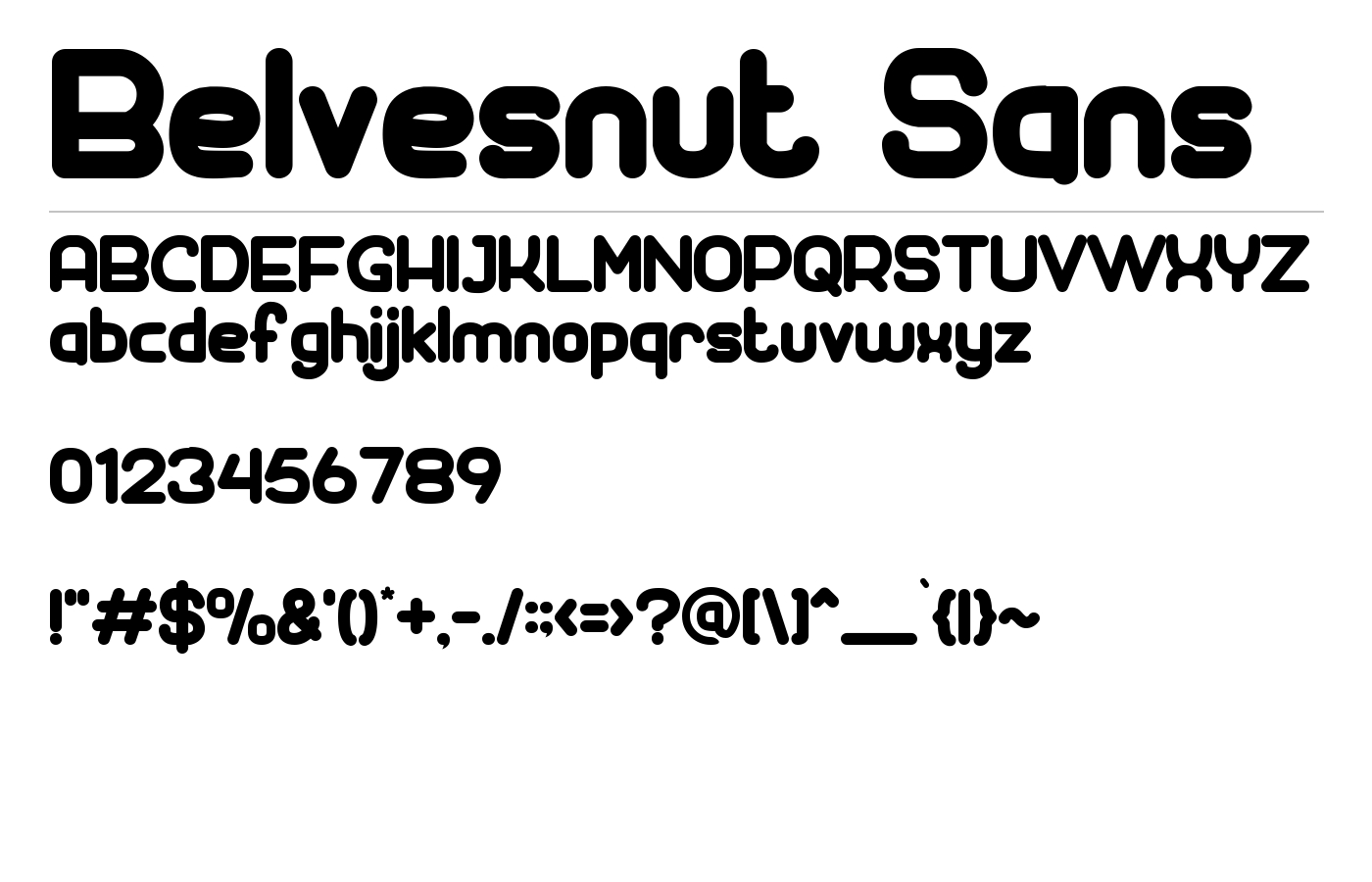
Belvesnut Sans is a bold, rounded sans serif font with a friendly and modern vibe. Its thick strokes, uniform weight, and slightly condensed letterforms create a playful yet clean appearance, making it great for eye-catching headlines, branding, and packaging where a cheerful but professional look is desired. This font works well in creative contexts that need strong, approachable typography with a touch of uniqueness.
Belvesnut Sans Font
About Belvesnut Sans Font
| Font family | Belvesnut Sans Font |
| Designer | Wahyu Prasetiyo |